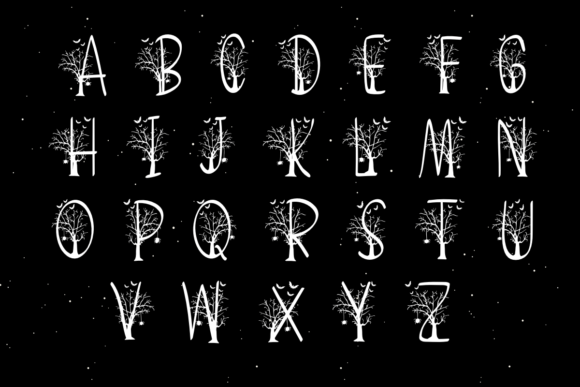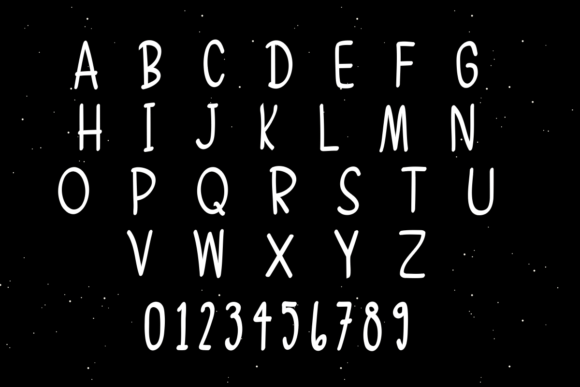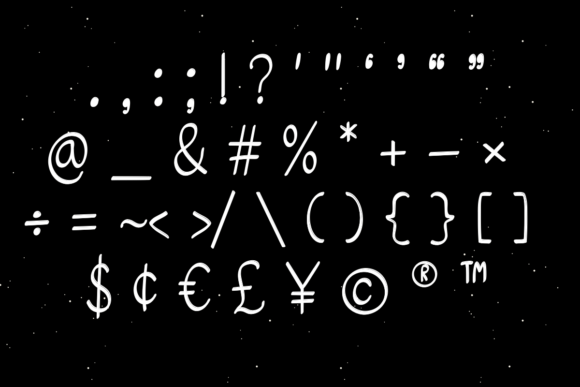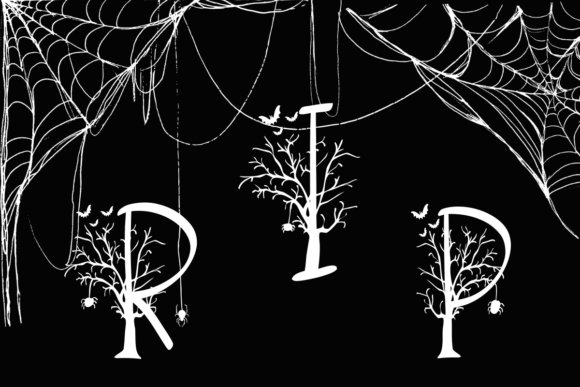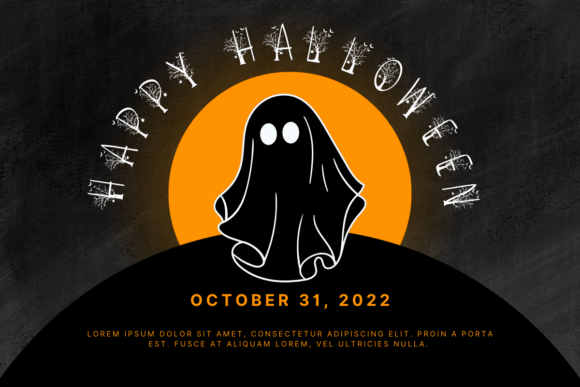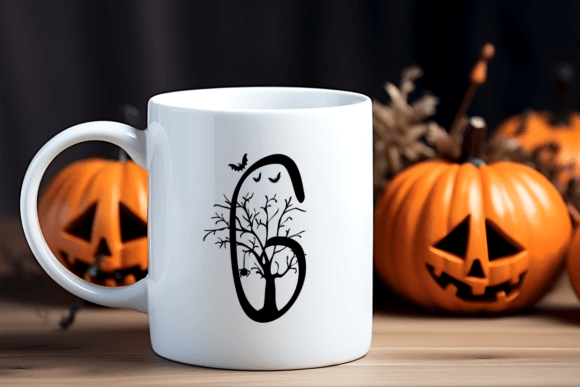
Introduction to Halloween Tree Font Font
Fonts play a crucial role in design, and the Halloween Tree Font font is a typeface that brings both character and versatility to any project. Whether you’re working on a branding project, a website, or a print design, the Halloween Tree Font font offers a unique style that can elevate your work.
Halloween Tree is a decorative font where each letter is designed with spooky trees.
The letters look like they are made from twisted branches, making it perfect for Halloween-themed projects .
Key Features of Halloween Tree Font Font
Why Choose Halloween Tree Font Font?
The Halloween Tree Font font is more than just a typeface – it’s a design tool that helps you communicate your message with style and clarity. Its unique character set and versatile design make it suitable for a wide range of applications, from elegant invitations to bold headlines.
With its carefully crafted letterforms and balanced proportions, the Halloween Tree Font font ensures readability and visual appeal across all mediums.
What makes Halloween Tree Font font special?
The Halloween Tree Font font stands out with its unique design, exceptional readability, and versatility across various design applications.